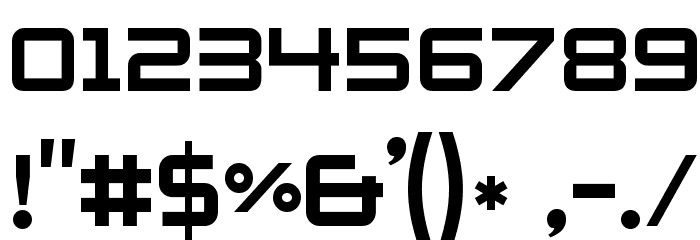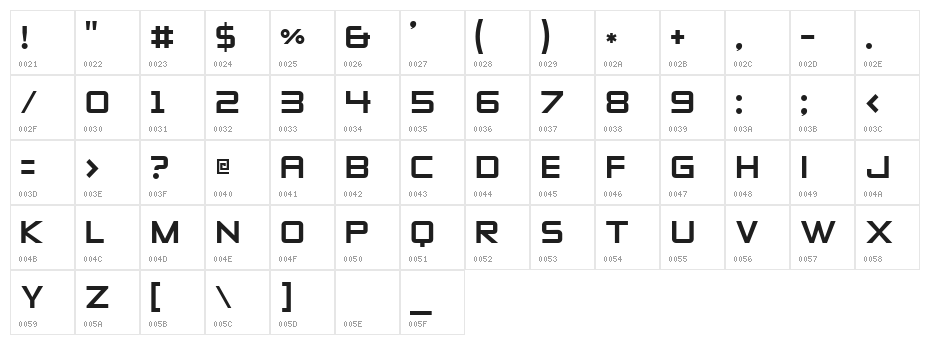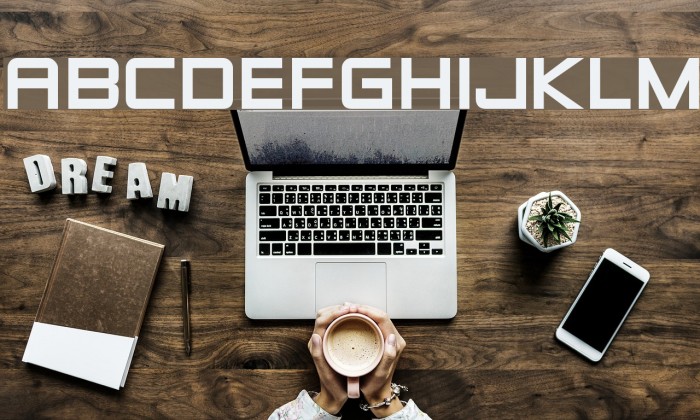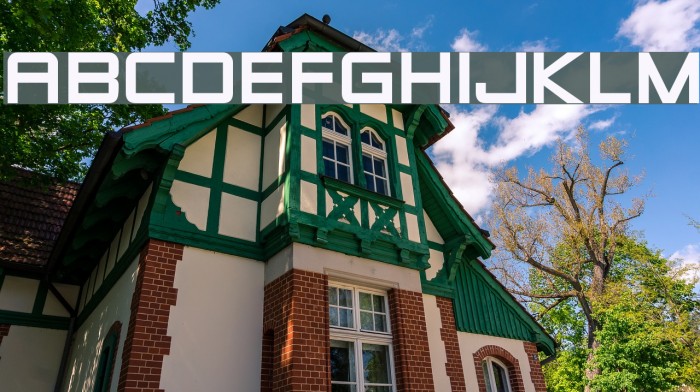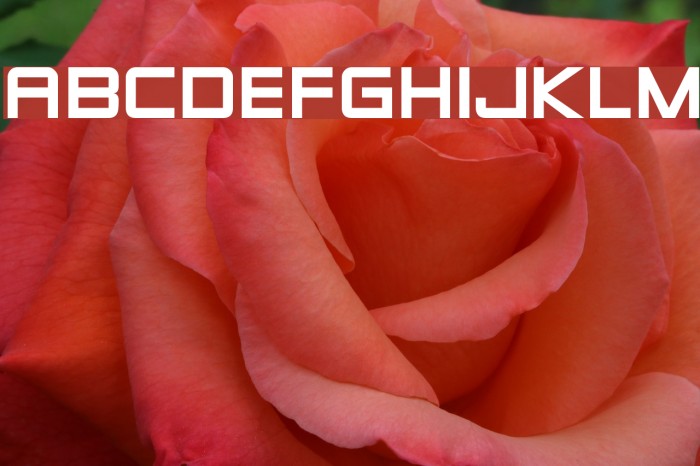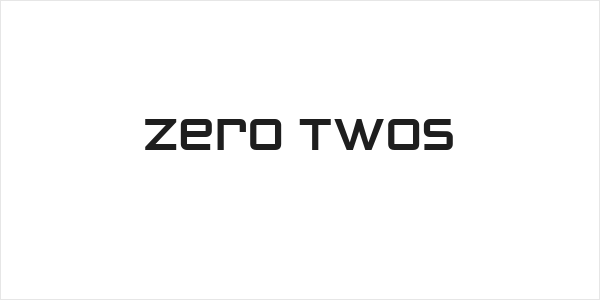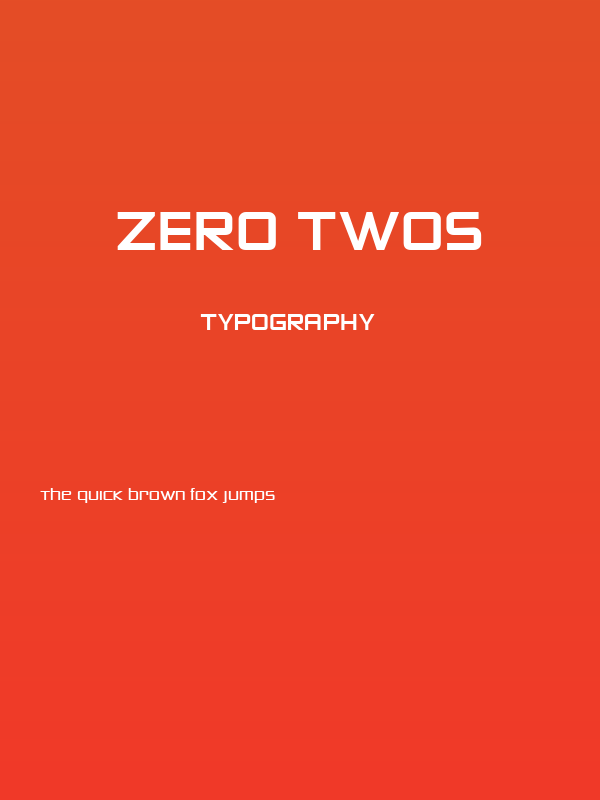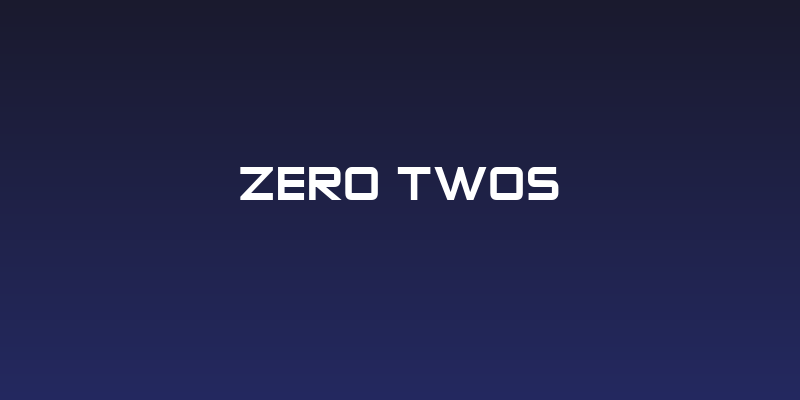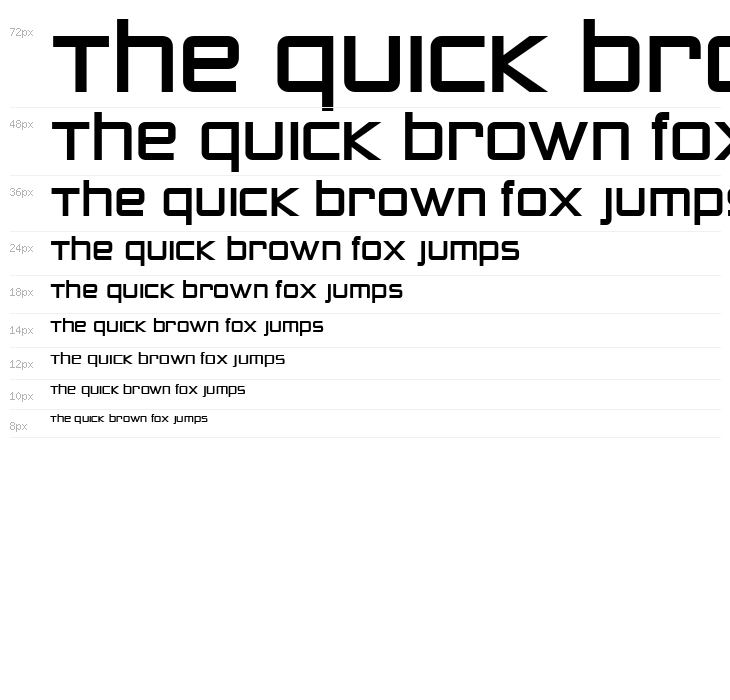
Zero Twos Font
Zero Twos Description
This font features a modern, geometric design with clean, straight lines and a uniform stroke width. The characters are well-proportioned, with a slightly condensed appearance that gives a compact and efficient look. The uppercase letters are bold and impactful, while the lowercase letters maintain a consistent style that complements the uppercase set. The numerals are clear and easily distinguishable, making them suitable for various applications. Special characters are included, maintaining the same geometric style, ensuring versatility in design projects. The overall aesthetic is sleek and contemporary, making it ideal for modern branding and digital interfaces.
| Use Case | Headlines, Logos, Digital Interfaces |
| Proposed Projects | Ideal for branding, digital interfaces, tech-related projects, and modern advertising. |